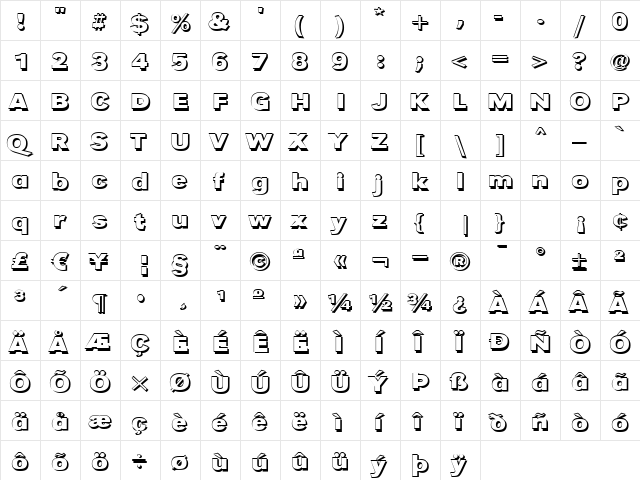
TomBeckerShadowE Bold
Design Context for TomBeckerShadowE Typeface
TomBeckerShadowE brings ornamental detail and strong personality to headlines and identities, where visual impact matters more than quiet functionality. The heavy weight commands attention and anchors typographic hierarchies.
Font Pairing: Pair with a clean neutral sans-serif for body copy to let TomBeckerShadowE's character lead without overwhelming the composition.
Pro Tip: Treat TomBeckerShadowE as the centrepiece of your typographic hierarchy. One strong heading set in a decorative face can carry an entire layout.